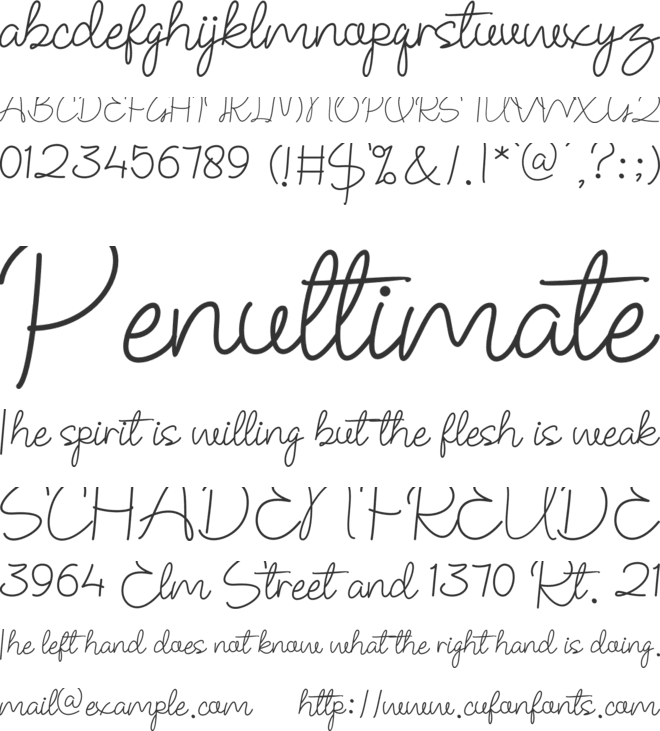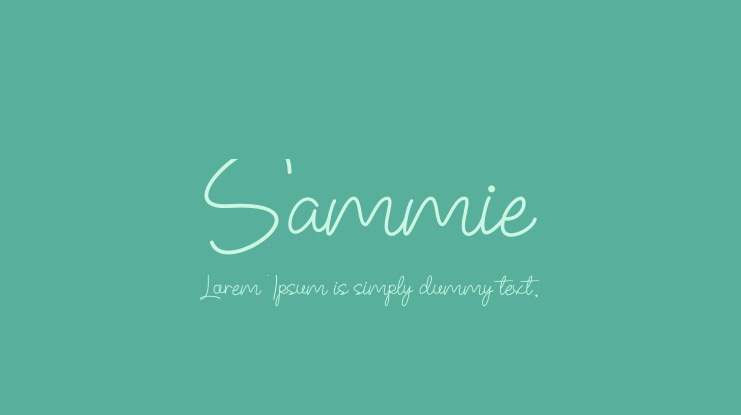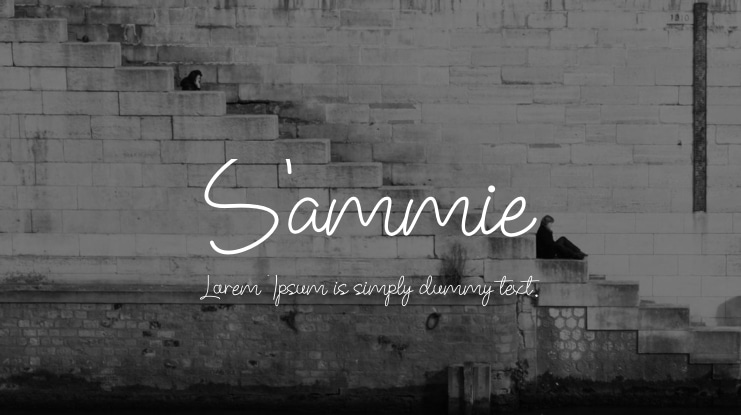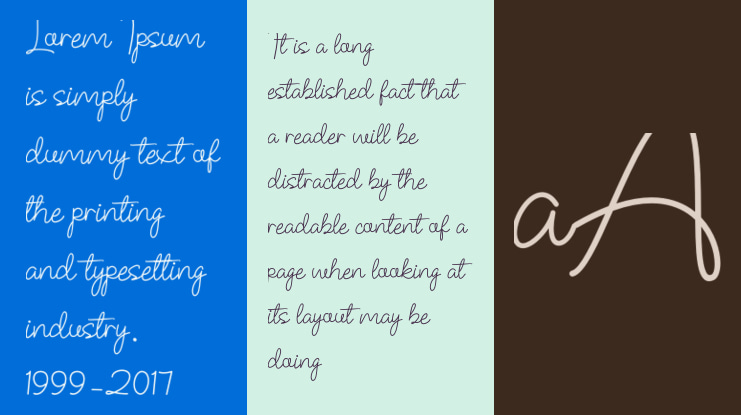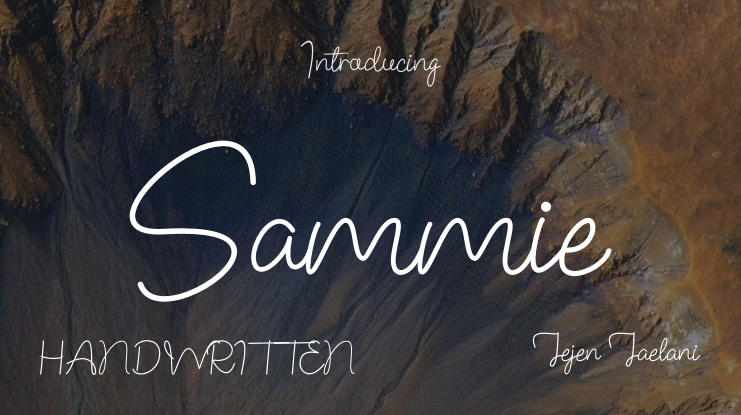
Sammie Font
Introducing "Sammie", an elegant and flowing script font that effortlessly blends classic sophistication with a hint of modern flair. Its meticulously hand-drawn strokes emulate the natural flow of handwriting, creating a personal and inviting atmosphere for every letter. Characterized by smooth curves, gentle loops, and a balanced rhythm, Sammie is the ideal choice for adding a charming and graceful touch to any project. Perfect for branding, invitations, social media graphics, or wedding stationery, this font brings warmth and personality to your work. Its versatility ensures both legibility and style, making it an excellent option for display and text applications.